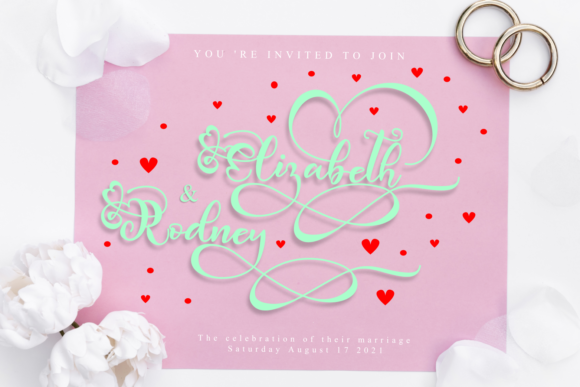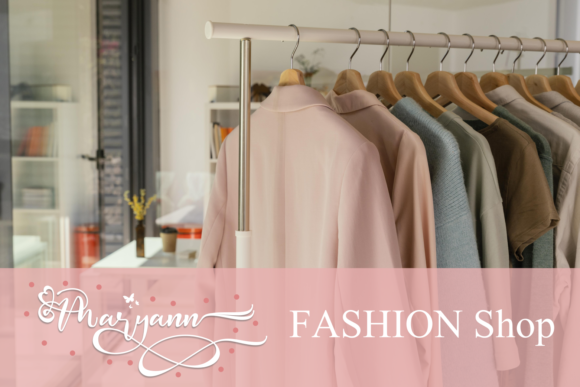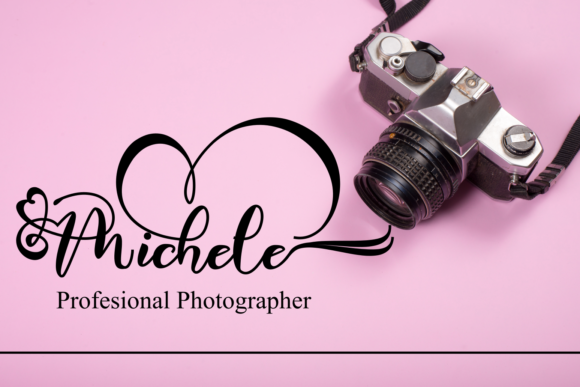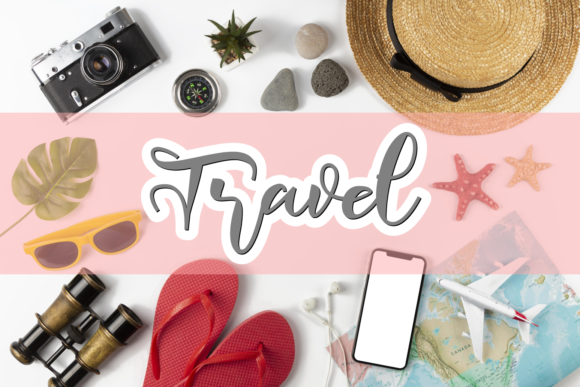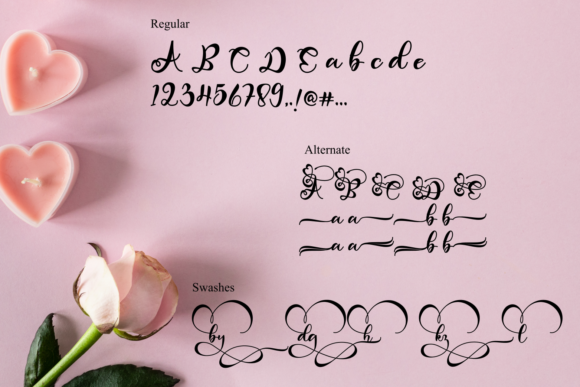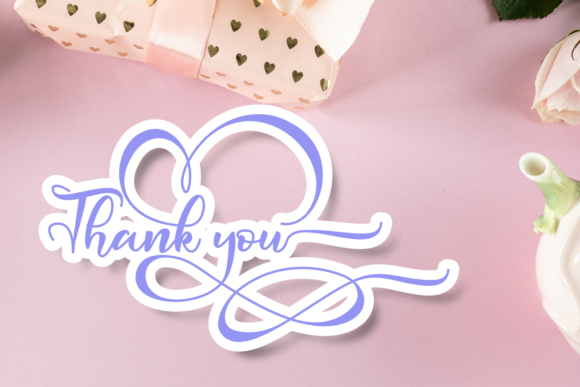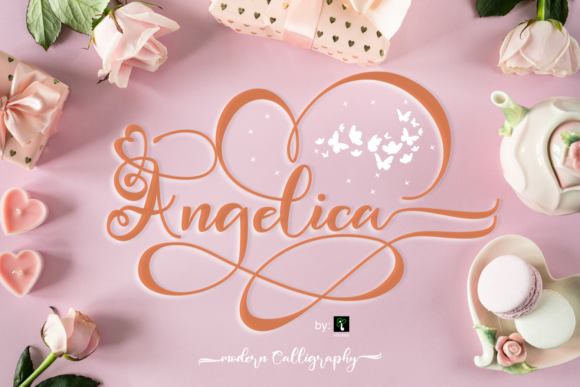
Discover the Elegance of Angelica Font: A Perfect Choice for Designers and Crafters
Are you looking for a font that exudes elegance, sophistication, and romance? Look no further than the Angelica Font, a stunning script font that is sure to capture your heart. With its thin lettering and graceful curves, Angelica is the perfect choice for designers and crafters who want to add a touch of luxury to their projects.
What Makes Angelica Font So Special?
Angelica is a thin lettered and graceful script font that boasts a ravishing style, making it ideal for creating beautiful wedding invitations, stationary art, social media posts, and more. Its elegant design is sure to impress your audience and leave a lasting impression. Whether you’re a designer, crafter, or DIY enthusiast, Angelica is a versatile font that can be used for a wide range of projects.
Key Features of Angelica Font
- PUA Encoded: Angelica font is PUA (Private Use Area) encoded, which means you can access all the glyphs and swashes with ease. This feature makes it easy to use and customize the font to suit your needs.
- Thin Lettering: The font features thin lettering that is both elegant and sophisticated, making it perfect for creating beautiful and delicate designs.
- Graceful Curves: Angelica’s curves are smooth and flowing, giving the font a romantic and whimsical feel that’s perfect for wedding invitations, Valentine’s Day cards, and other special occasions.
- Swashes and Glyphs: With Angelica, you get access to a range of swashes and glyphs that can be used to add a personal touch to your designs.
Uses of Angelica Font
Angelica font is incredibly versatile and can be used for a wide range of projects, including:
- Wedding Invitations: Create stunning wedding invitations that set the tone for a beautiful and elegant wedding.
- Stationary Art: Use Angelica to create beautiful stationary art, including greeting cards, thank you cards, and more.
- Social Media Posts: Add a touch of elegance to your social media posts and make them stand out from the crowd.
- DIY Projects: Use Angelica to create beautiful DIY projects, including scrapbooking, journaling, and more.
Tips for Using Angelica Font
Here are some tips for using Angelica font to get the most out of this beautiful font:
- Use it sparingly: Because Angelica is a elegant font, it’s best to use it sparingly to avoid overwhelming your design.
- Pair it with other fonts: Experiment with pairing Angelica with other fonts to create a unique and interesting design.
- Experiment with colors: Try out different colors and textures to add depth and interest to your design.
In conclusion, Angelica font is a stunning script font that is sure to capture your heart. With its thin lettering, graceful curves, and PUA encoding, it’s the perfect choice for designers and crafters who want to add a touch of elegance to their projects. Whether you’re creating wedding invitations, stationary art, social media posts, or DIY projects, Angelica is a versatile font that is sure to impress. So why wait? Fall for the ravishing style of Angelica font and take your designs to the next level!